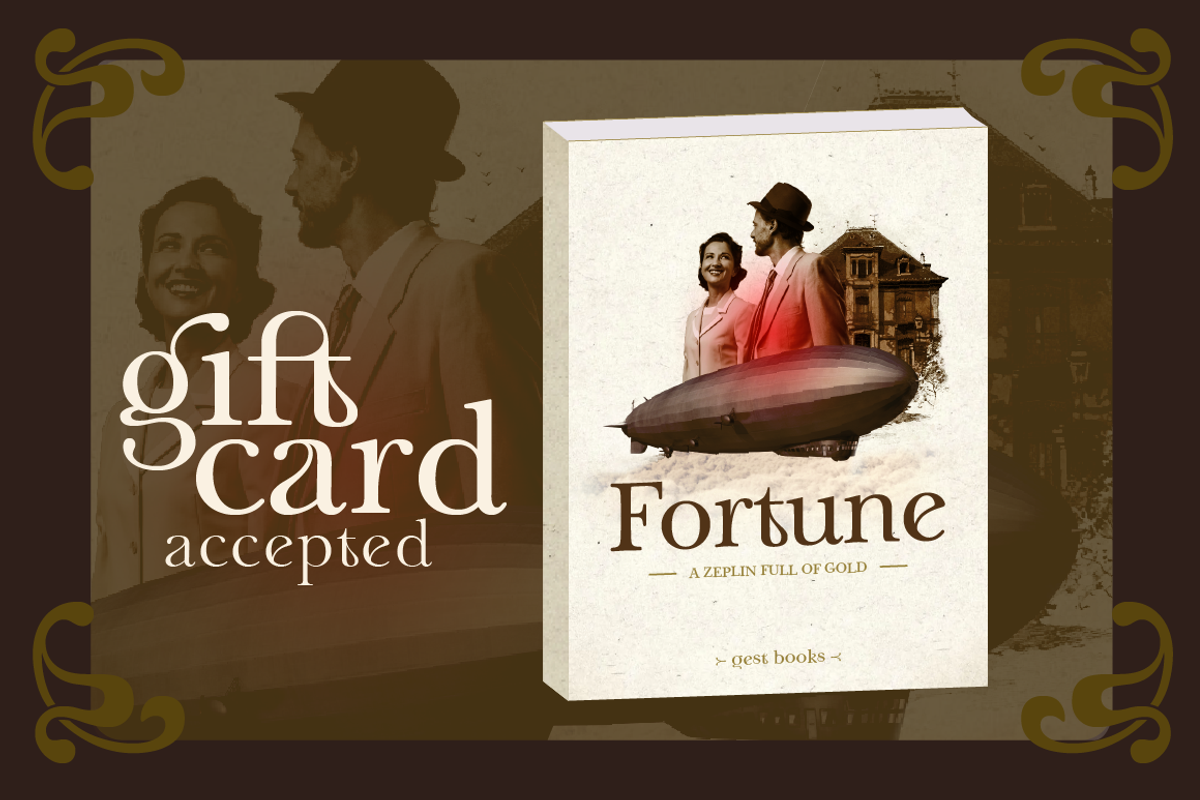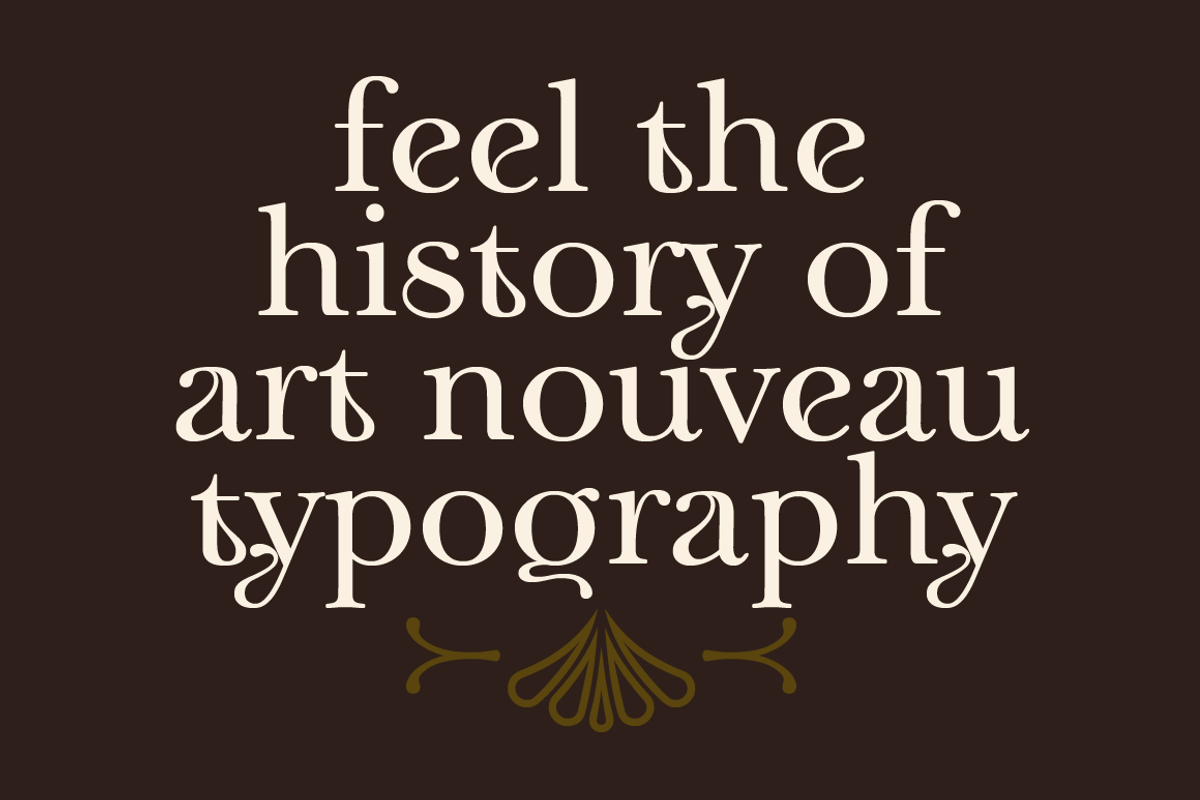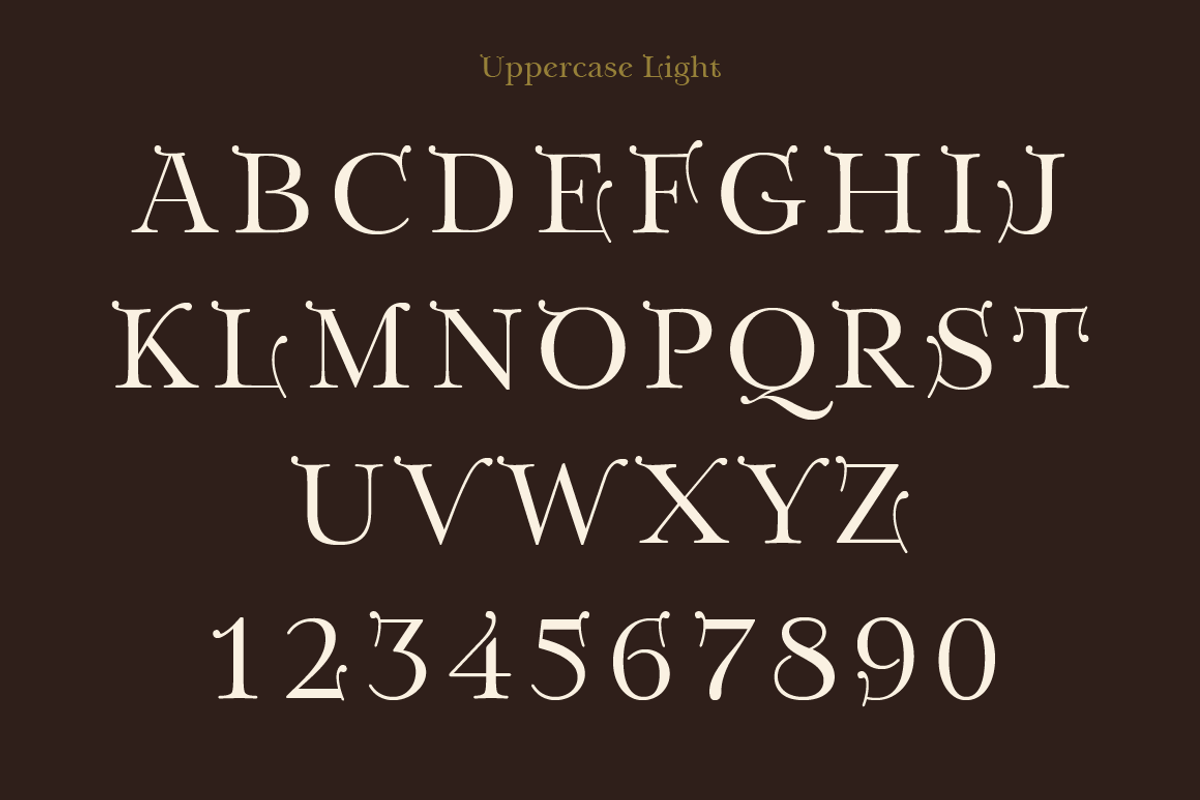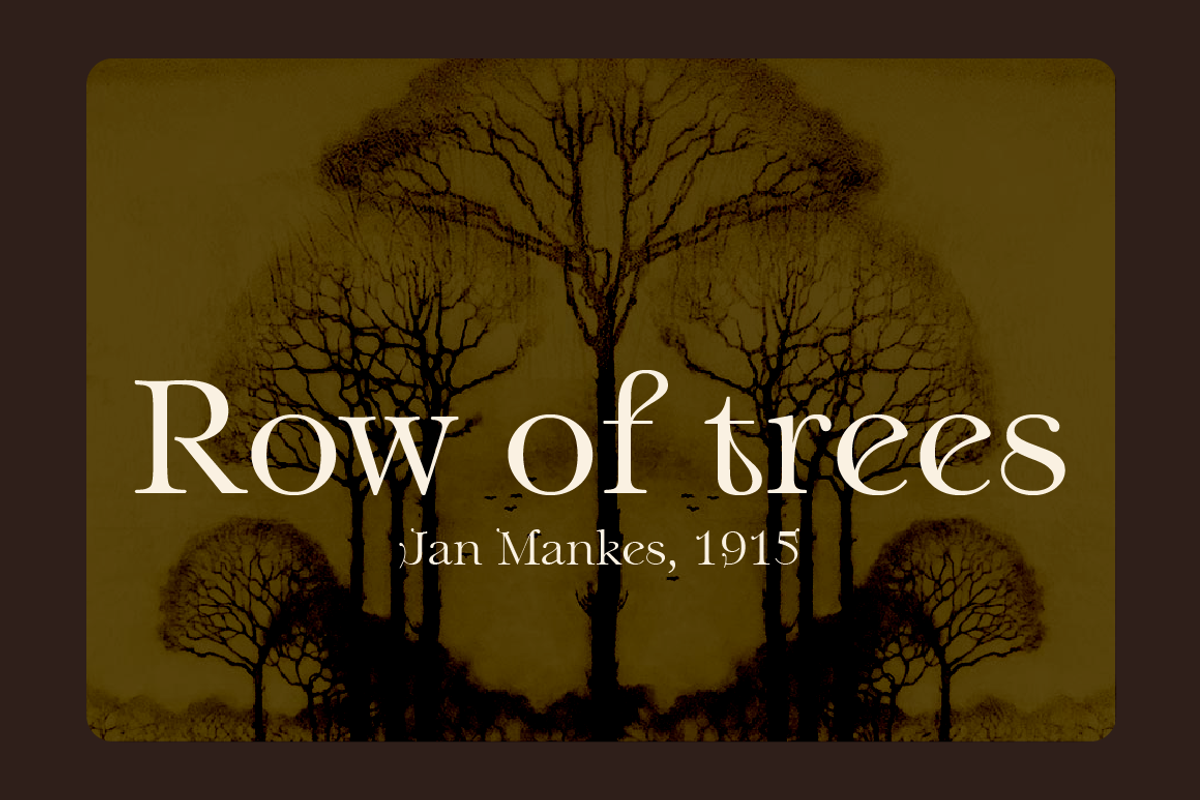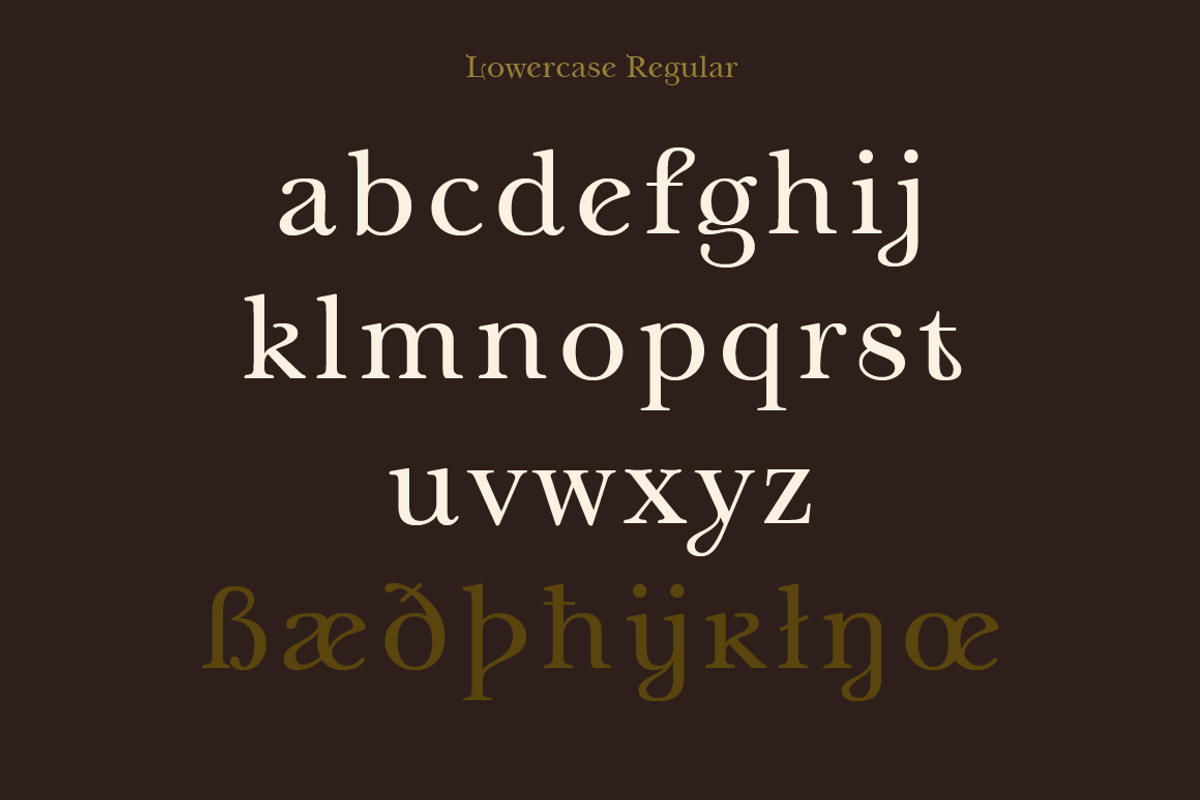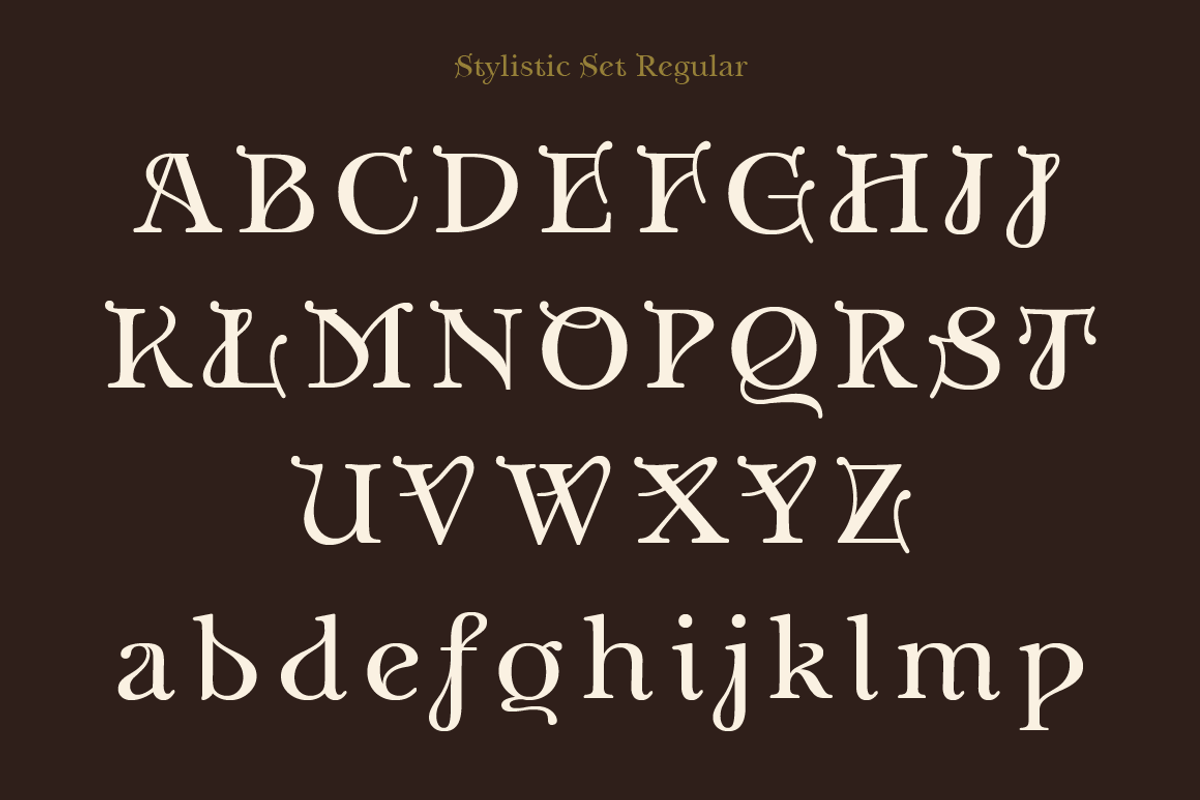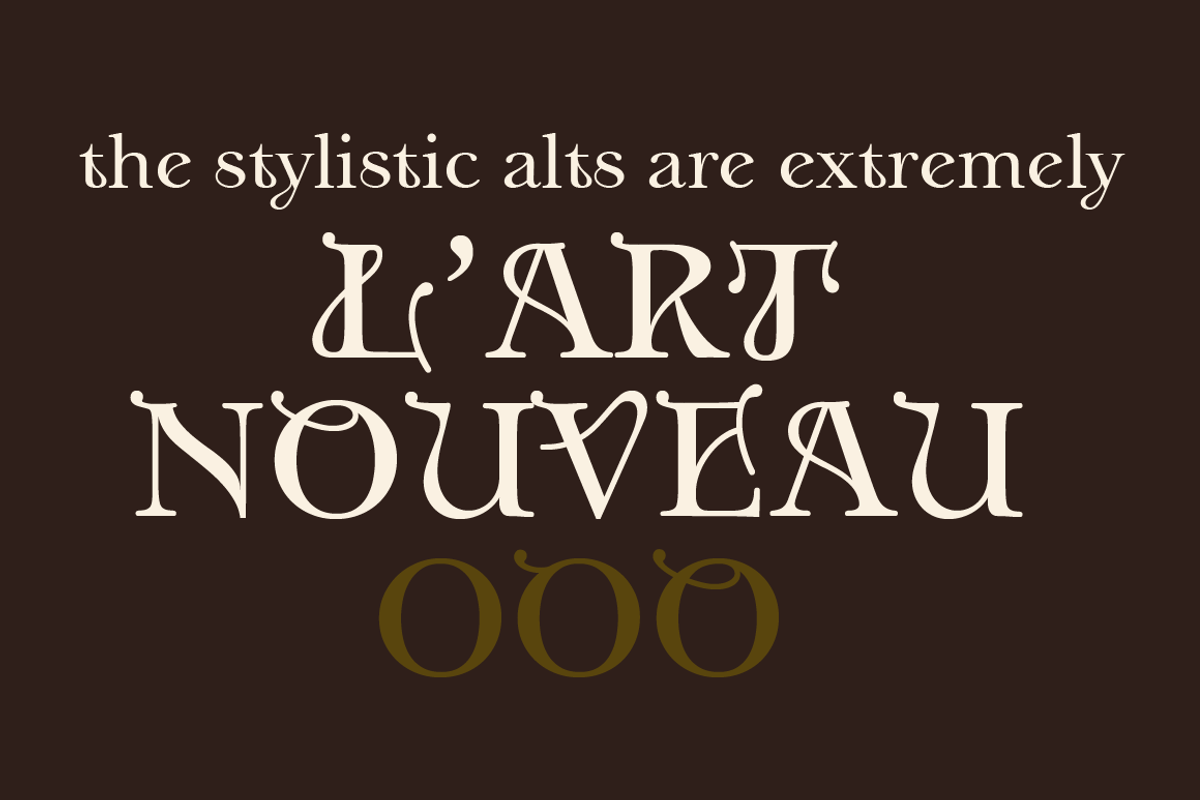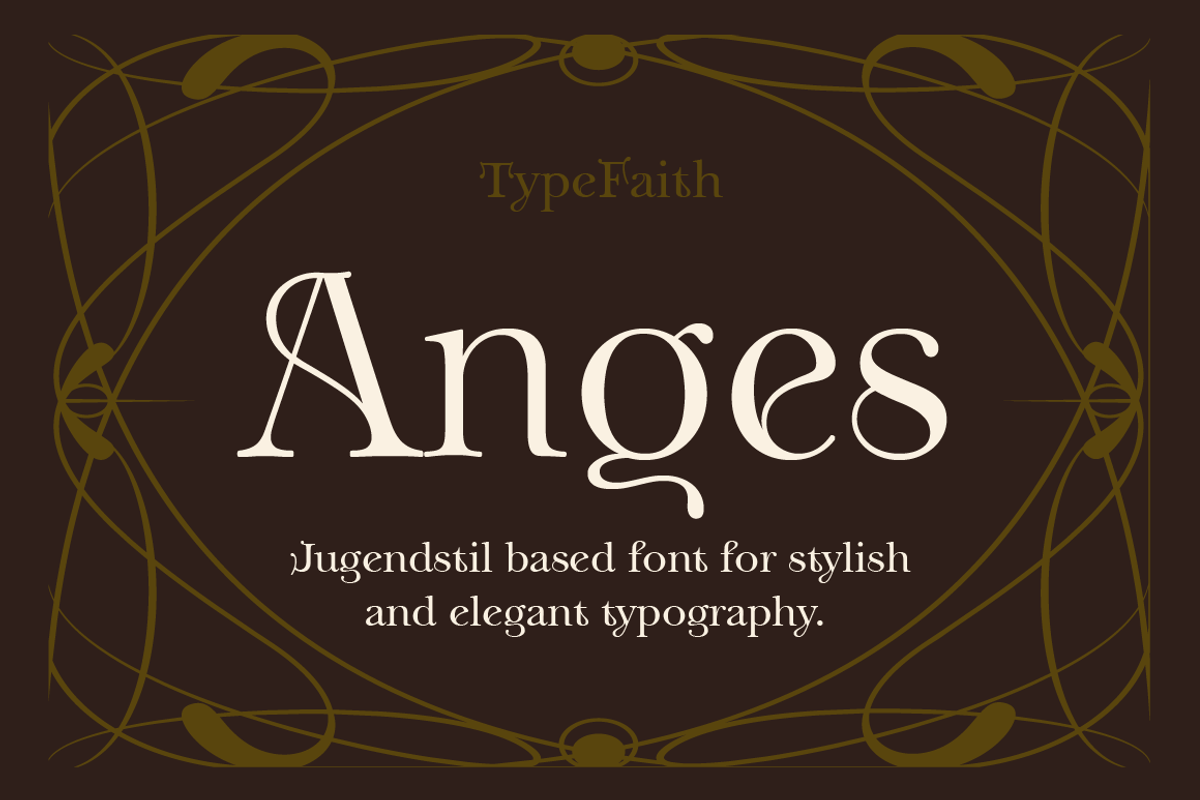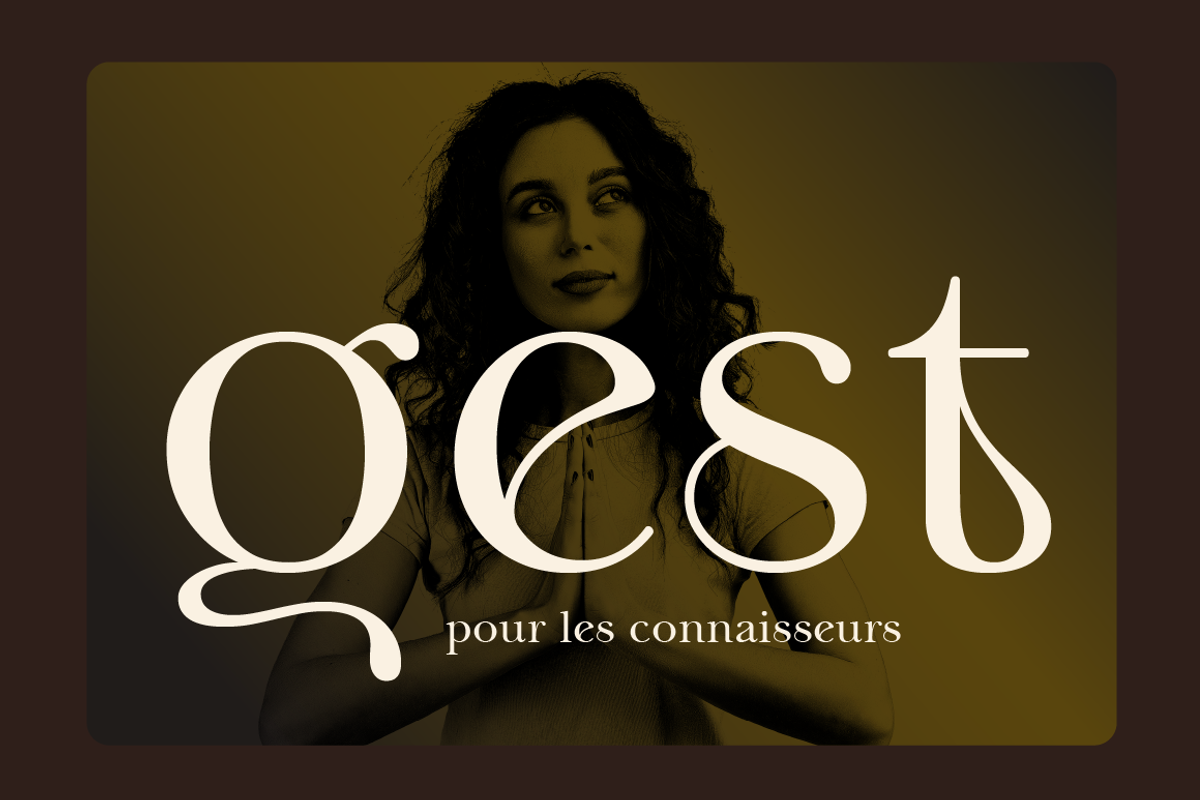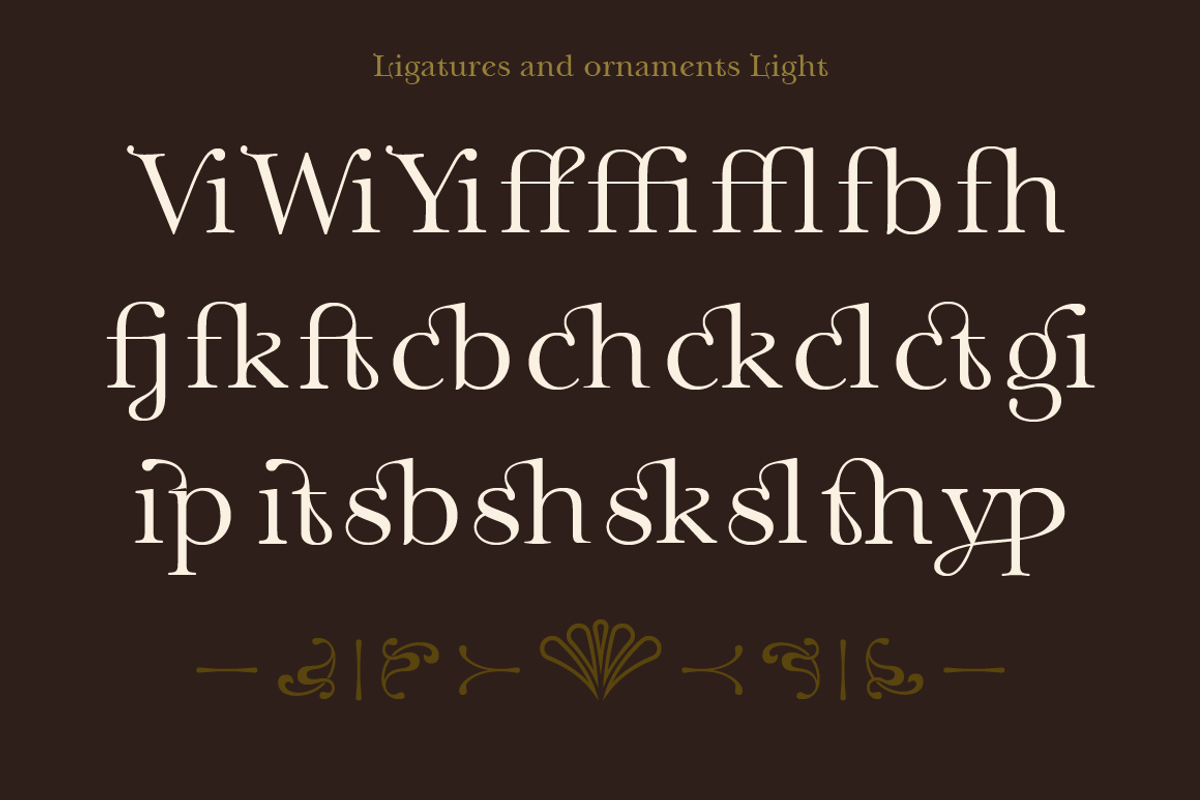
Anges - stylistic Art Nouveau font
Just a two-weight font for brand, poster, and cover design with many unique characters and ligatures. Anges is an elegant and playful font from TypeFaith Fonts. Designed because we love the Art Nouveau and Jugendstil style. Anges is not a text font. However, for headlines and titles, it is a very characteristic font. That is why Anges suits posters, book covers, invitation cards, and logos.
Anges is a redesign of the previously designed TypeFaith font Solente, which is the base of Anges. We redesigned it completely and added many extras to make it versatile and playful. Because it is entirely new, we also came up with a new name.
Anges is a design by Leon Hulst for TypeFaith Fonts.